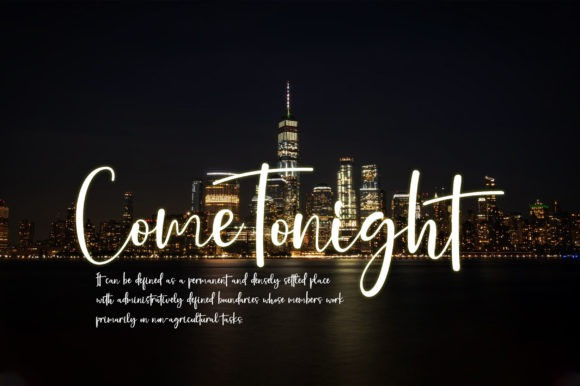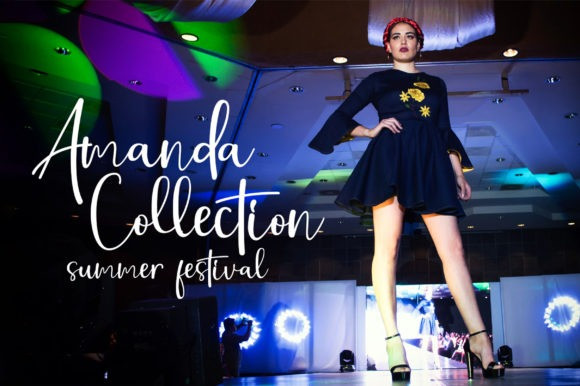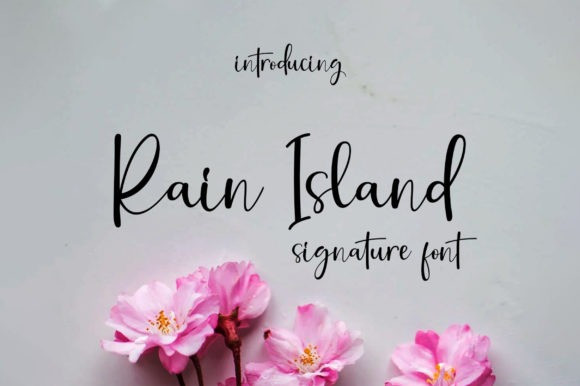
Rain Island Font
Rain Island Script Font is a lovely and timeless signature font. It is the best choice for creating eye catching logos, branding and quotes. Every letter has a unique and beautiful touch, which will make your design come alive!